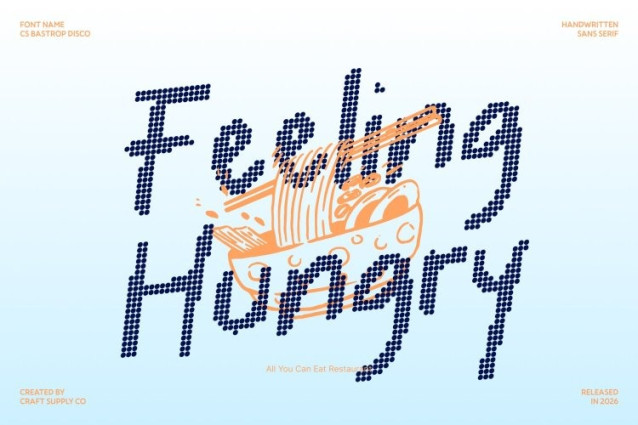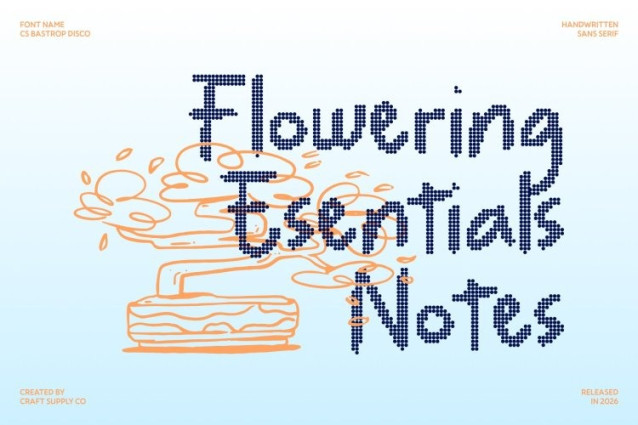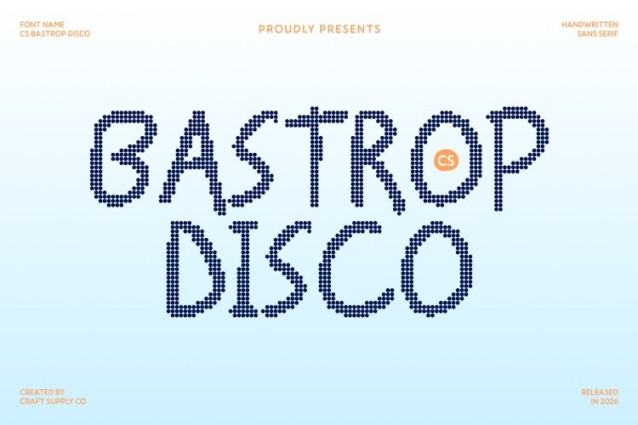
CS Bastrop Disco Font – This is a charming handwritten sans serif font that radiates warmth, joy, and upbeat personality. With its rounded shapes and smooth, friendly strokes, it captures the spirit of carefree creativity now infused with a subtle disco bounce. Every letter feels lively and expressive, designed to spark smiles and bring cheerful energy to your designs.
Rounded Forms for a Warm, Approachable Feel
The soft curves and gentle edges give this font a naturally friendly character. Each letter feels hand-drawn and spontaneous, adding authenticity and charm to your typography. This approachable style makes it perfect for children’s projects, family-focused designs, and brands that want to communicate positivity and human warmth.
Playful Rhythm with Lively Energy
This is built to energize layouts with its cheerful handwritten rhythm. The playful flow between letters creates movement and vibrance, making text feel animated and full of life. Whether used for party invitations, kids’ books, greeting cards, or fun branding, it instantly uplifts any composition.
Perfect for Whimsical and Creative Designs
From joyful logos and colorful posters to packaging and social media graphics, this font adapts effortlessly to playful themes. Its blend of handwritten charm and clean sans serif simplicity ensures versatility while maintaining a distinctive personality. With every design feels fresh, friendly, and full of happy, disco-inspired spirit.